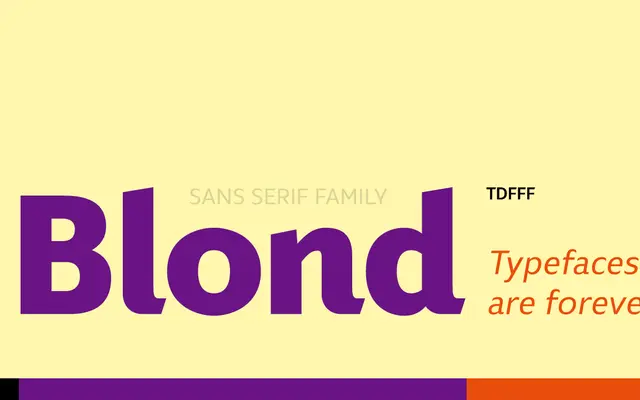
Blond
Tour de Force · Dušan Jelesijević · 2018
A uniform modern sans-serif in 11 weights with matching italics, covering extended Latin across 102 languages.
Designed by Dušan Jelesijević and released in June 2018, Blond offers 22 styles running from Thin to Heavy with matching italics. The family includes a small stylistic set affecting the 'a' and 'g', standard ligatures, and coverage of 102 languages via an extended Latin character map. Its even weight distribution and consistent rhythm make it serviceable across editorial and screen contexts.
A clean, modern sans-serif with uniform stroke contrast and a geometric sensibility. The foundry classifies it simply as Sans-Serif, and its even weight distribution across 11 weights points to a geometric or neo-grotesque approach.